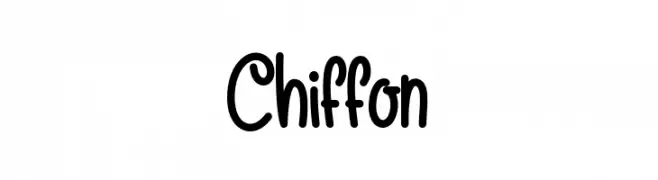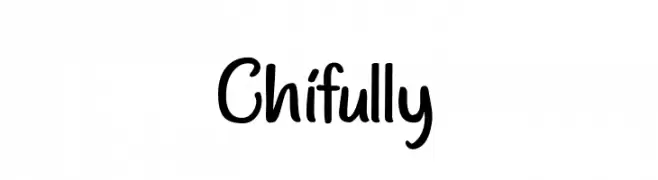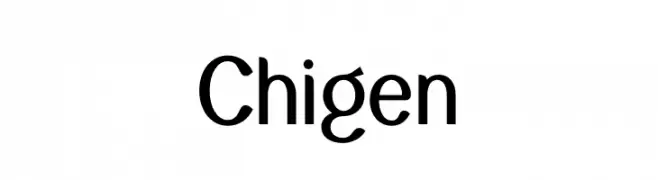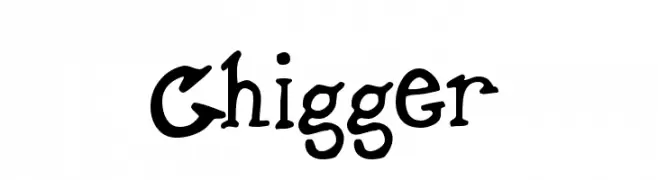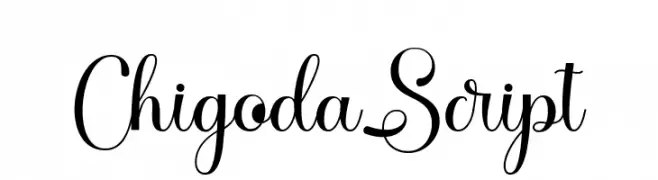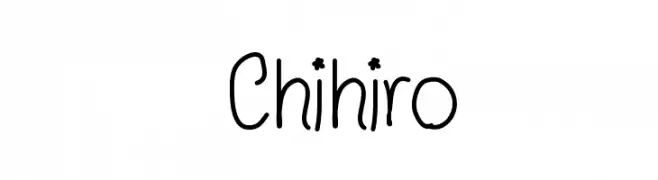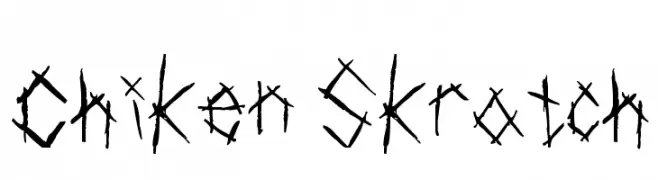
A dynamic and elegant script font with fluid, cursive letterforms.
A playful, hand-drawn font with rounded, bold characters and a whimsical style.
A playful, casual handwritten font with smooth, flowing strokes.
A modern sans-serif font with clean lines and a slightly condensed structure.
A whimsical, hand-drawn font with playful, irregular letterforms and unique illustrations.
A modern, elegant script font with flowing, sophisticated characters.
A raw, edgy font with scratchy, hand-drawn lines and irregular, jagged characters.
A bold, playful font with rounded, bubbly characters.